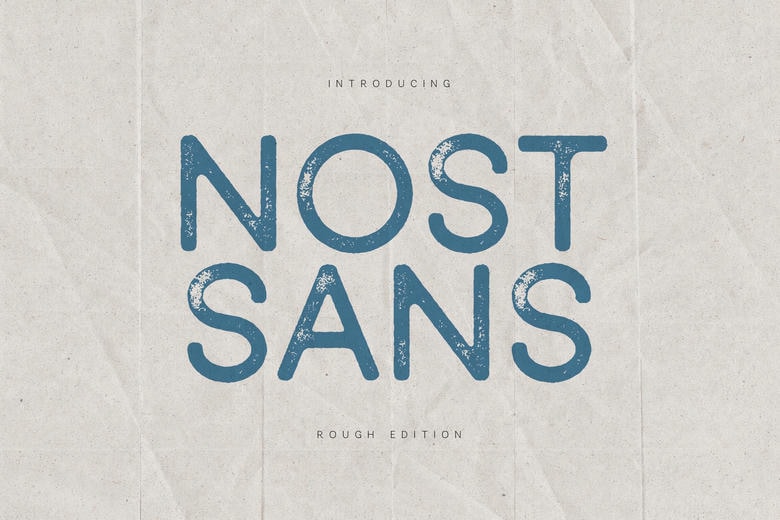
Nost Sans Font
Nost Sans Friendly rounded and slightly rough, Nost Sans is a warm and homely font that gives the touch of authenticity and friendliness to any design. Made to be modern but easy to touch, it is blended with a clean geometric structure and imperfections that are handcrafted.
Nost Sans is ideal in branding, packaging, posters and editorial layouts, apparel design, and social media graphics due to the soft curves and the slightly worn-out finishing. It is very good in bold headlines and subtext. Nost Sans provides a sense of personality to clarity, no matter what you need to construct: a brand of style in the present day, or a striking typeface.